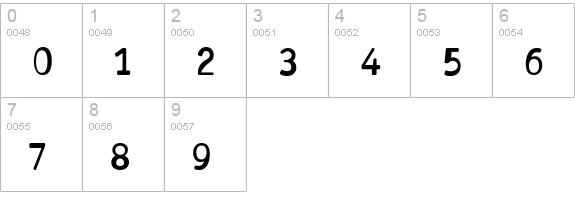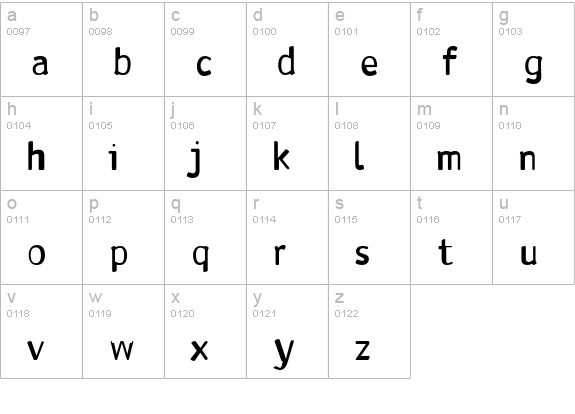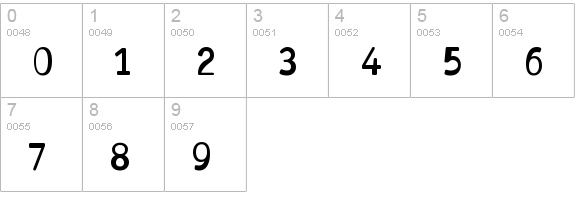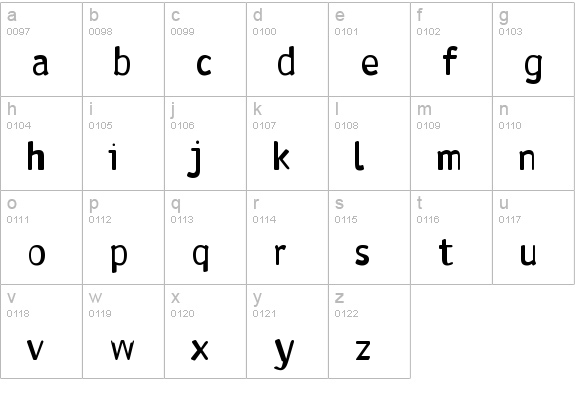
Antaviana Bold Font Details
Antaviana Bold is a strong, high-contrast variant in the Antaviana typeface family \xE2\x80\x94 well suited to headlines, attention-grabbing titles, and strong calls-to-action.
Antaviana Bold is a striking and versatile font that exudes confidence and modernity. With its clean lines and bold strokes, this typeface commands attention and makes a bold statement in any design project. Perfect for headlines, logos, posters, and more, Antaviana Bold offers a contemporary edge while maintaining a sense of elegance. The best part? Antaviana Bold is available for free download at FontsMarket.com. This means you can easily access this high-quality font without any cost, making it a valuable addition to your font collection. Don't miss out on this opportunity to elevate your designs with the bold and impactful Antaviana Bold font. Download it now and unleash your creativity!